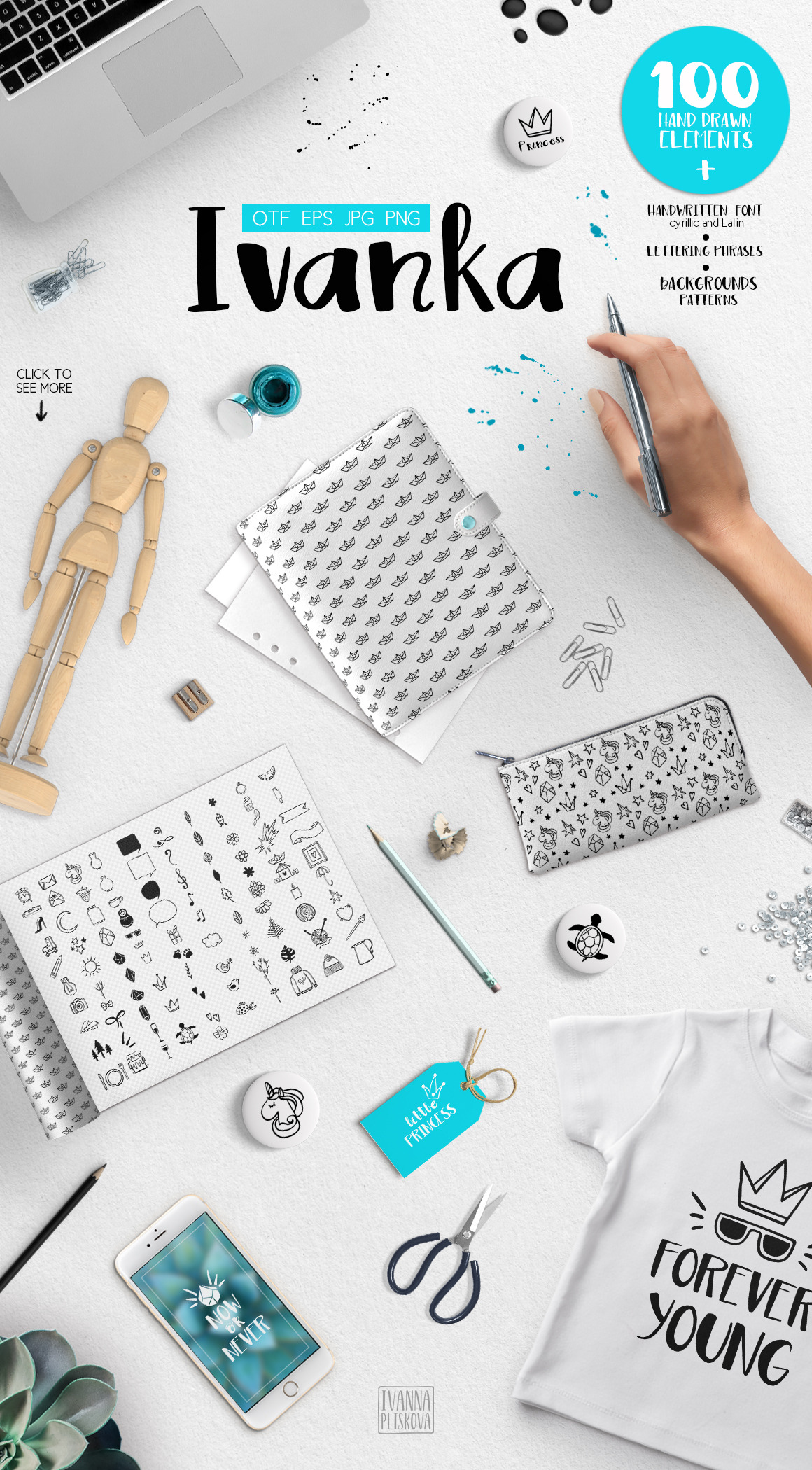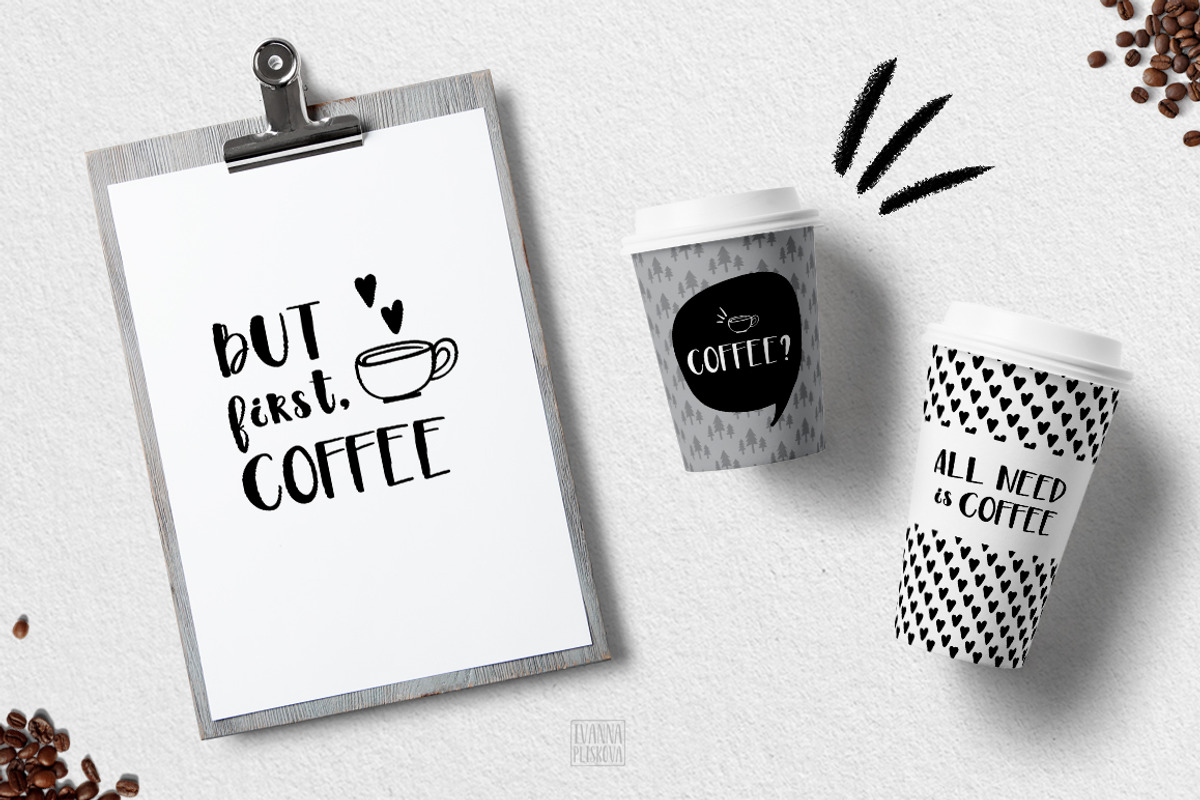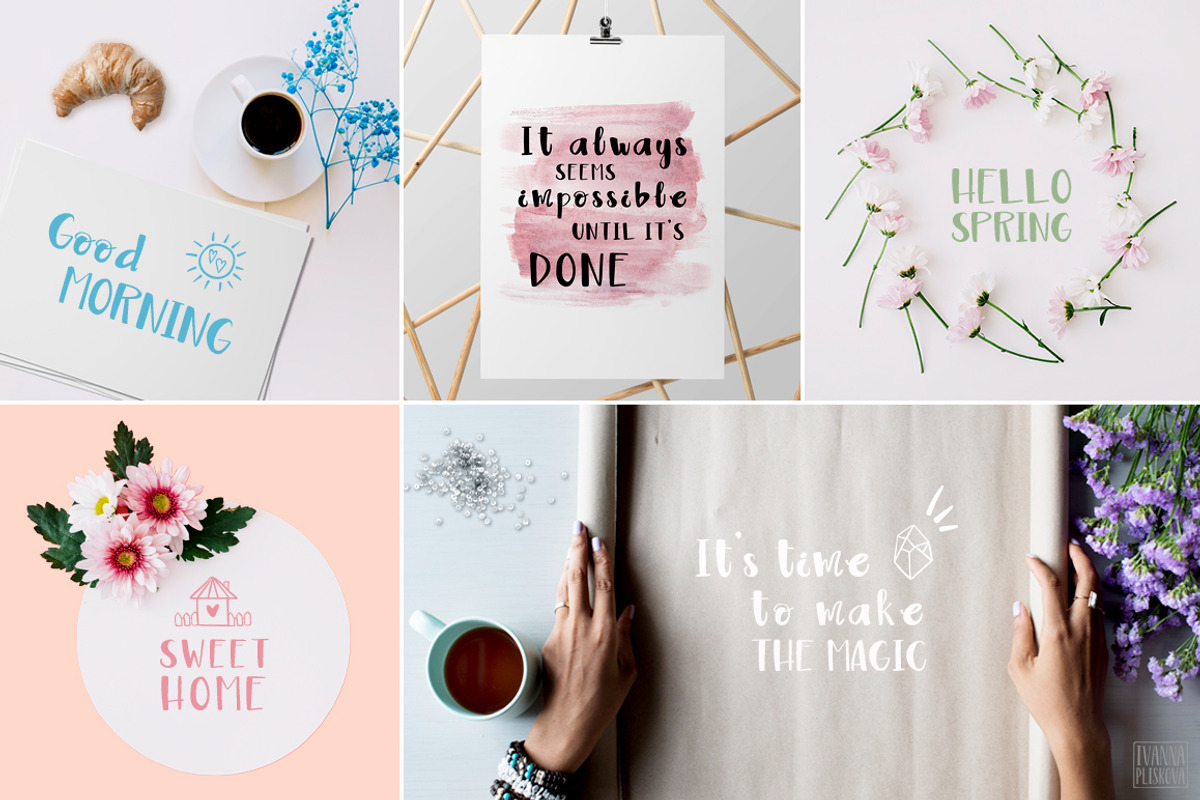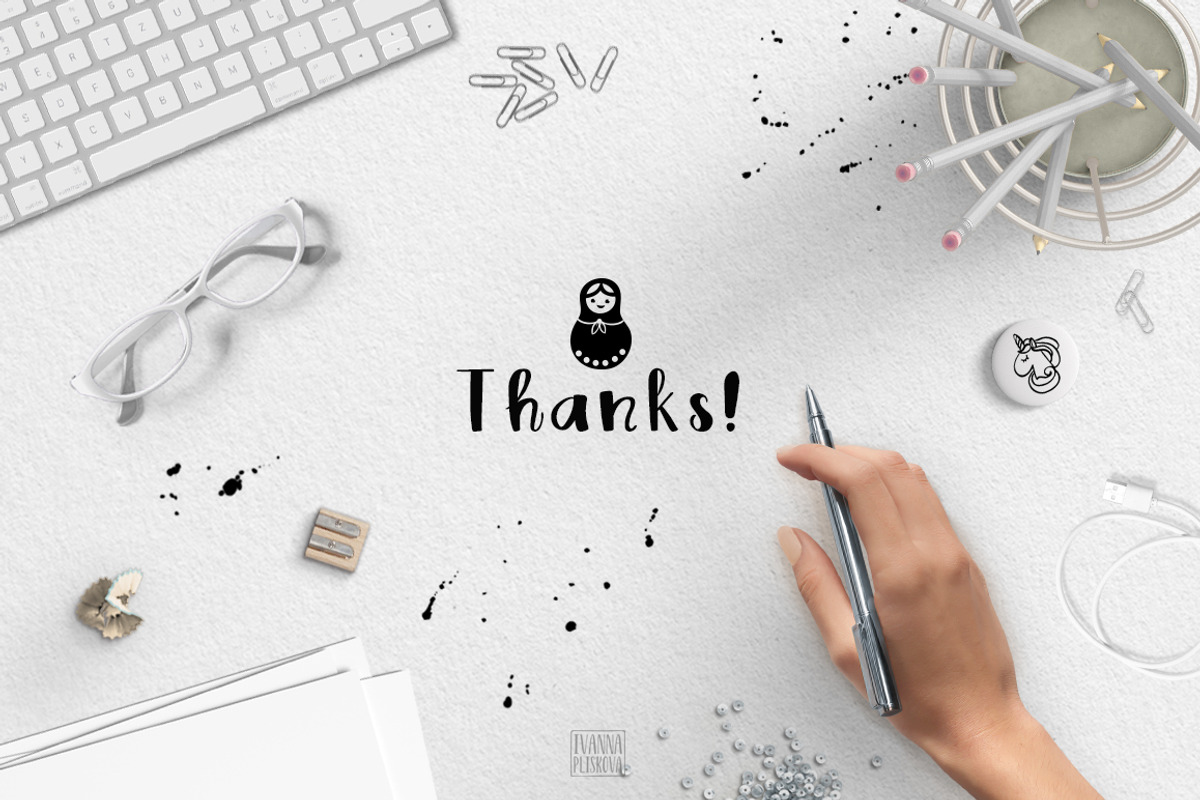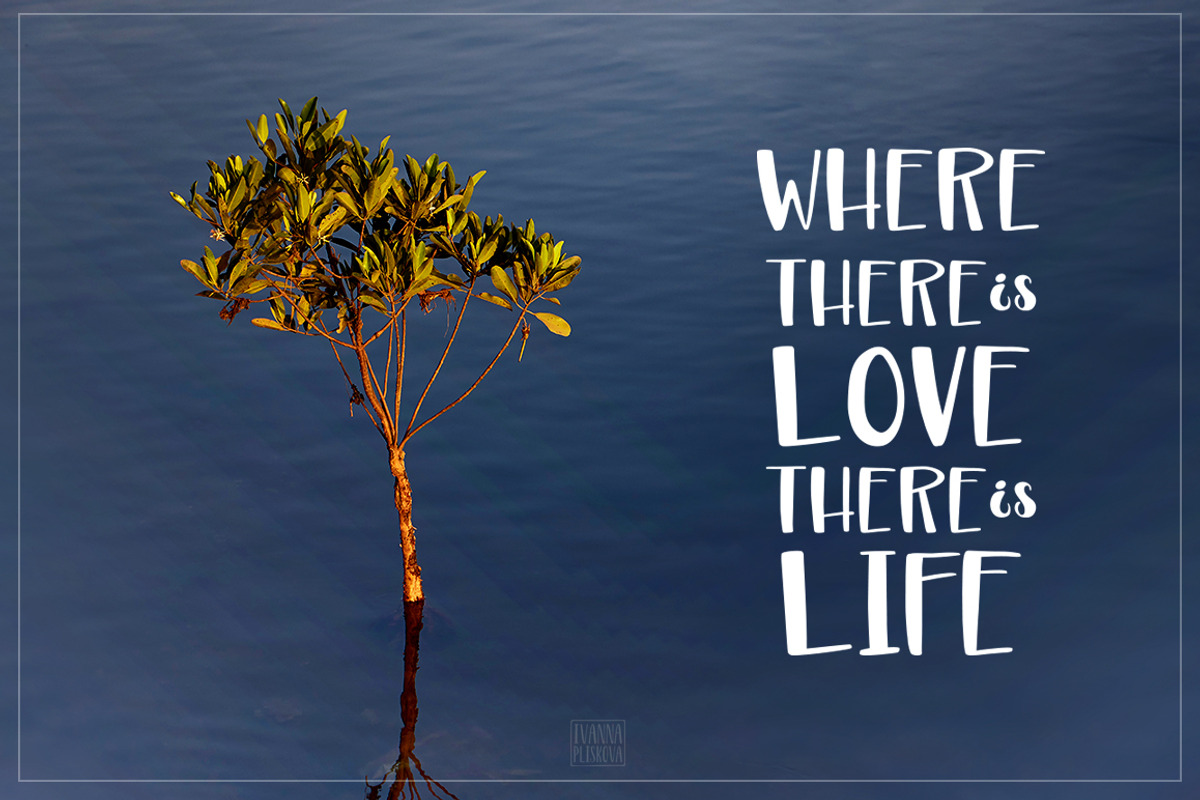
Ivanka Font•Patterns•Vector elements
I’m pleased to introduce my new BIG set Ivanka Font • Patterns • Vector elements!
Your can mix and match font, elements and patterns to create your unusual designs. Also, you can create your words and phrases. Make the most on-trend and stylish logos, birthday cards, packaging, brands and wedding invites with this all-in-one collection of design resources in no-time. Use EPS vector files - to change colors and details. Just enjoy and have fun!